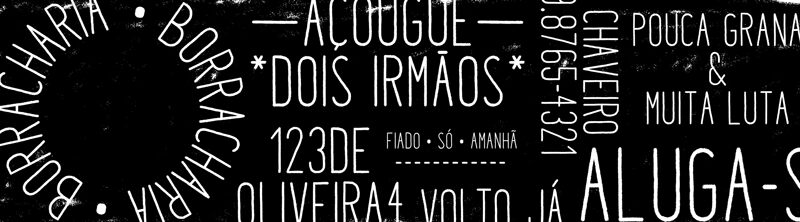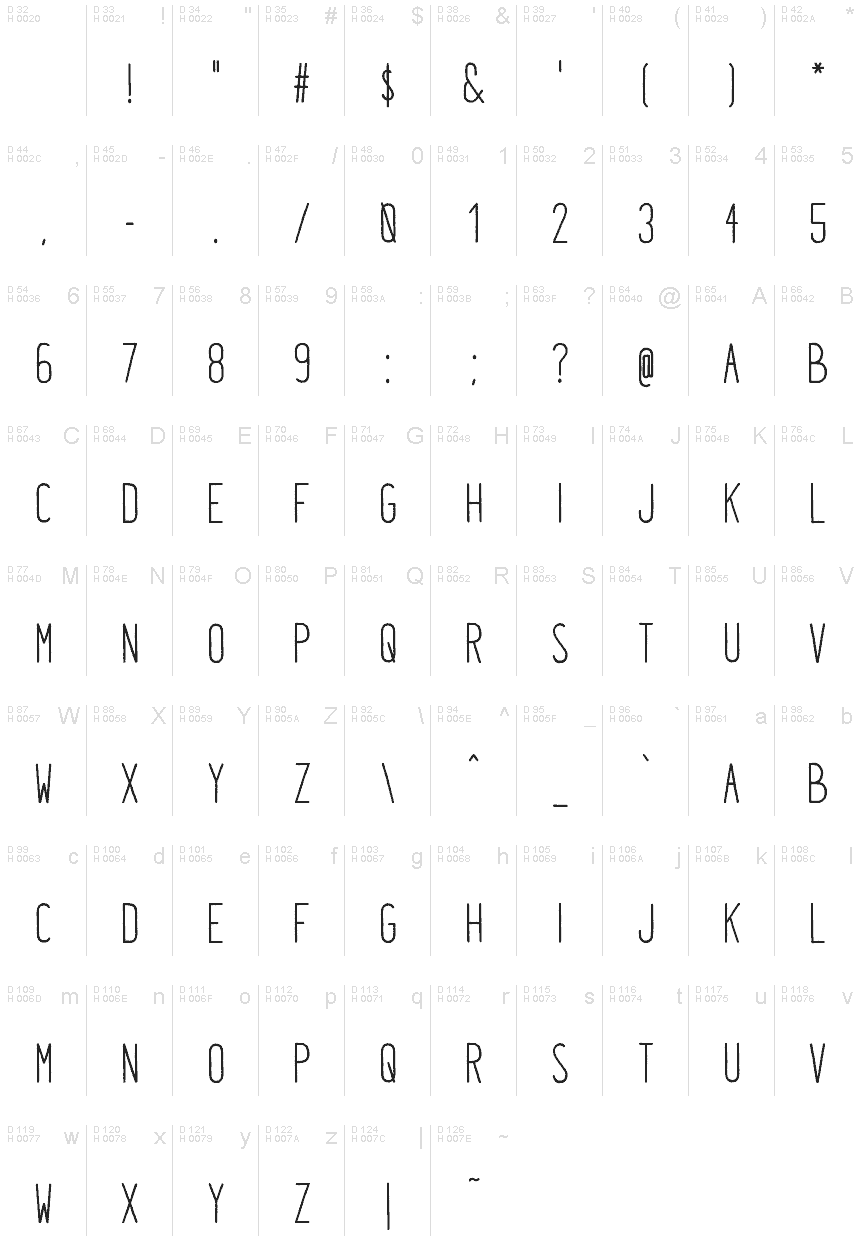
Fininha Regular
Fininha font by Jardel Vieira is a handwritten display font with all uppercase characters. It features a minimalist aesthetic and unique geometric structure conveyed by light, clean lines and condensed glyphs. Specially made by developing lettering, vectorization, and digitization techniques, the font borrows from common signs of everyday Latin American life.
Implement Fininha’s modern elegance in magazine covers, greeting cards, packaging designs, book covers, or contemporary posters. This free creative typeface also works for the design of websites or mobile apps buttons. Another use case is movie posters and book cover designs; it can easily act as a title/subtitles font or body text as well depending on your needs!